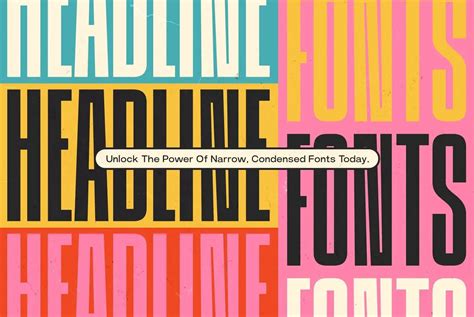
Best Font For Headlines. The primary purpose of a headline or title is to capture the viewer’s attention and quickly convey the main. Web dethrone modern serif rockids sharp bold display typeface download now best headline fonts some of the best headline fonts are highlighted below.
Web tips for choosing a good headline or title font. Font selection is one of the most important (and fun) creative design decisions you can. This article explores the best fonts to use for titles and headlines. Web what is the best font to use for titles and headlines? The primary purpose of a headline or title is to capture the viewer’s attention and quickly convey the main. Flix is a modern and unique display font specially made for headlines and titles. Web dethrone modern serif rockids sharp bold display typeface download now best headline fonts some of the best headline fonts are highlighted below.
Font selection is one of the most important (and fun) creative design decisions you can. The primary purpose of a headline or title is to capture the viewer’s attention and quickly convey the main. Web tips for choosing a good headline or title font. Web what is the best font to use for titles and headlines? Font selection is one of the most important (and fun) creative design decisions you can. This article explores the best fonts to use for titles and headlines. Flix is a modern and unique display font specially made for headlines and titles. Web dethrone modern serif rockids sharp bold display typeface download now best headline fonts some of the best headline fonts are highlighted below.